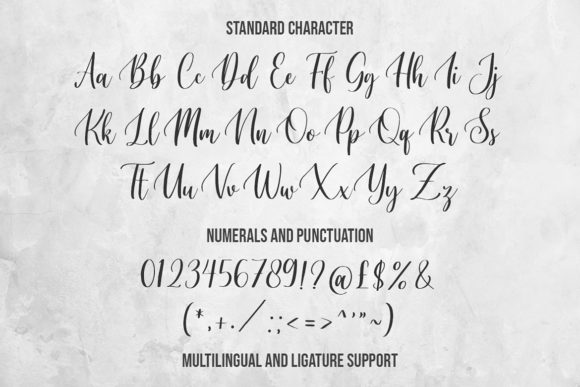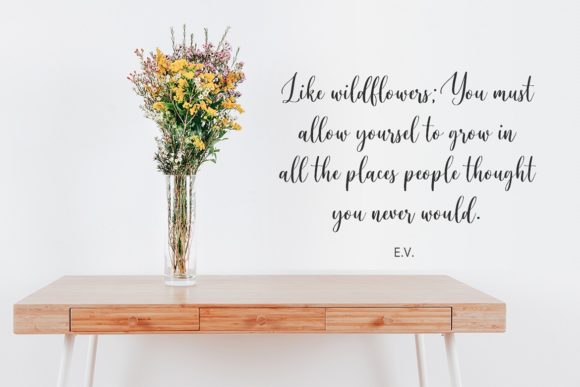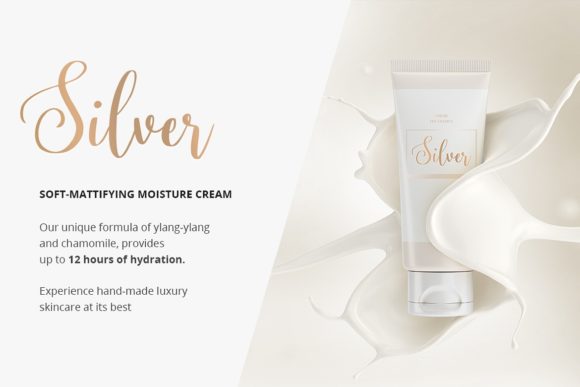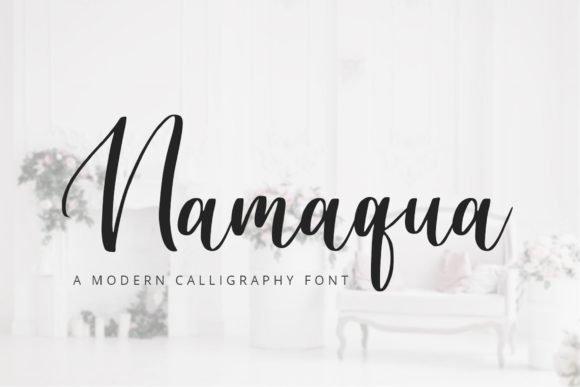
Introduction to Namaqua Font
Namaqua results out of a stunning pairing of a brush pen and pencil that makes it look incredibly endearing and authentic.
Use this gorgeous and unique handwritten font to bring any DIY project to life .
Key Features of Namaqua Font
Why Choose Namaqua Font?
Namaqua Font offers exceptional quality and versatility, making it a valuable addition to your design toolkit. Whether you’re creating for personal projects or commercial use, Namaqua Font delivers professional results.